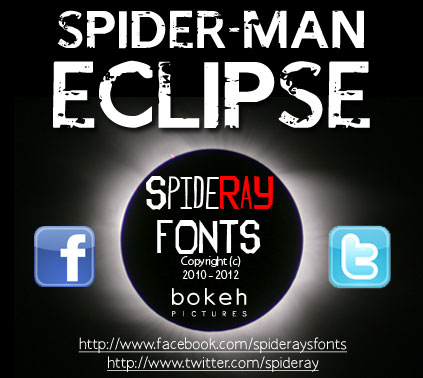
Spider-Man: Eclipse by SpideRaY is a free eroded movie display font with broad, weighty capitals and a hard-edged superhero profile. Random chips and scraped gaps break across the strokes, giving the otherwise solid lettering a distressed, battle-worn surface.
Comic-book artwork and dramatic character imagery share its rough, high-impact treatment, making it useful for fan posters and convention graphics. The cinematic proportions also suit action-game title cards and superhero-themed merchandise, where the damaged texture can echo debris, scratches, or cracked surfaces in the surrounding art. It is aimed squarely at designers and fans building projects around comic-book action and screen-inspired spectacle.
This font is a recreation of the creator’s original fan font, I AM SHERLOCKED. The repackaged version was created to promote the fan-based short film SPIDER-MAN: ECLIPSE by Al White of Bokeh Pictures. The font was used in the film.